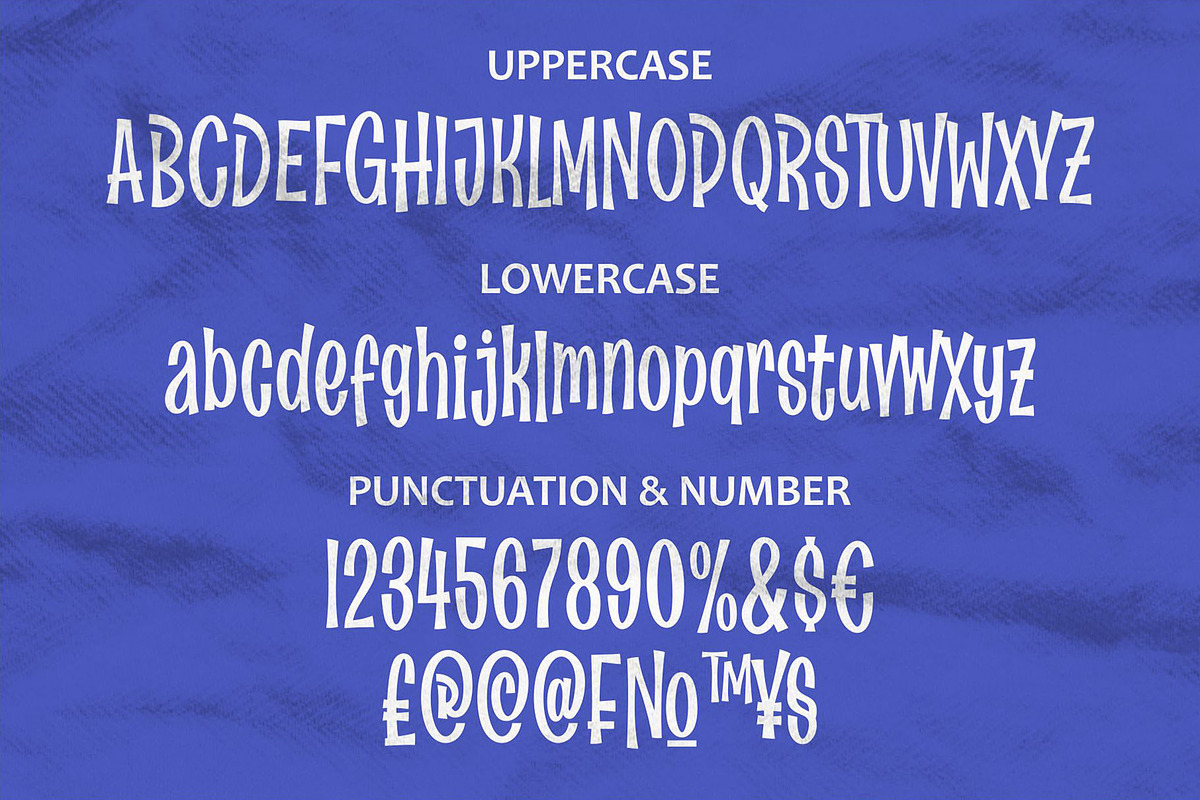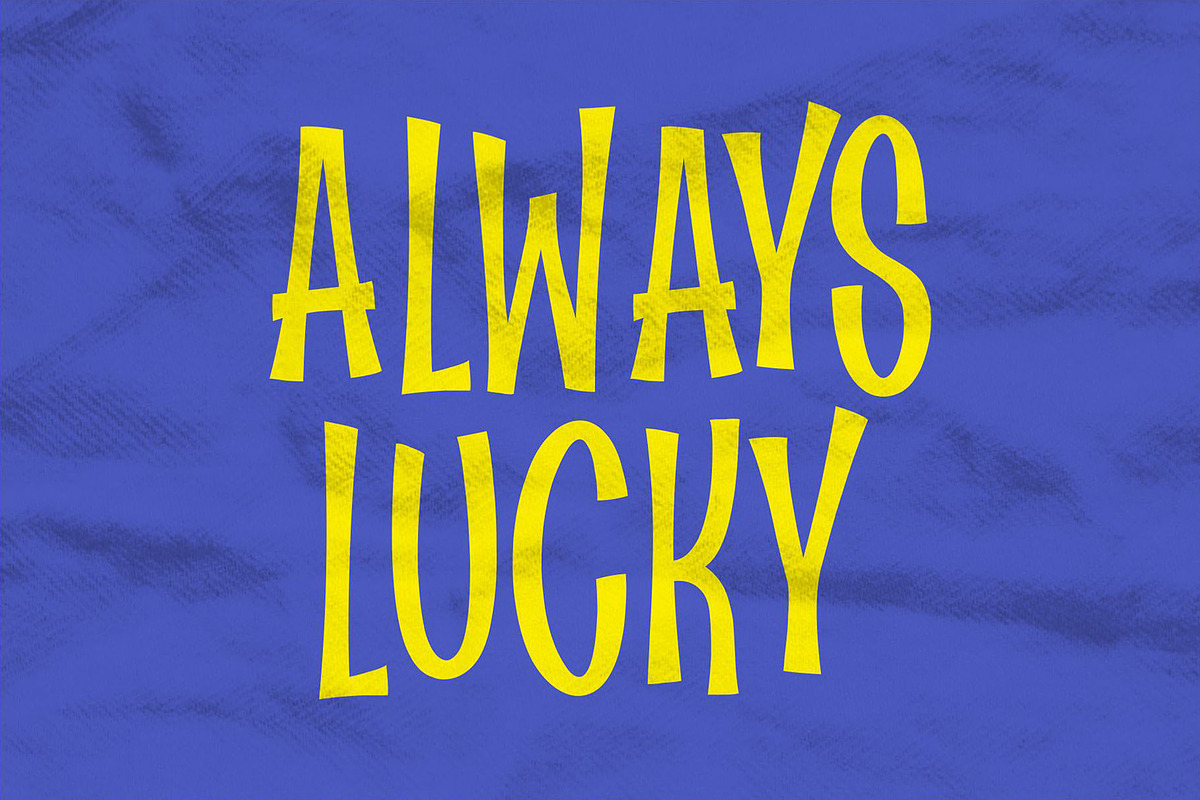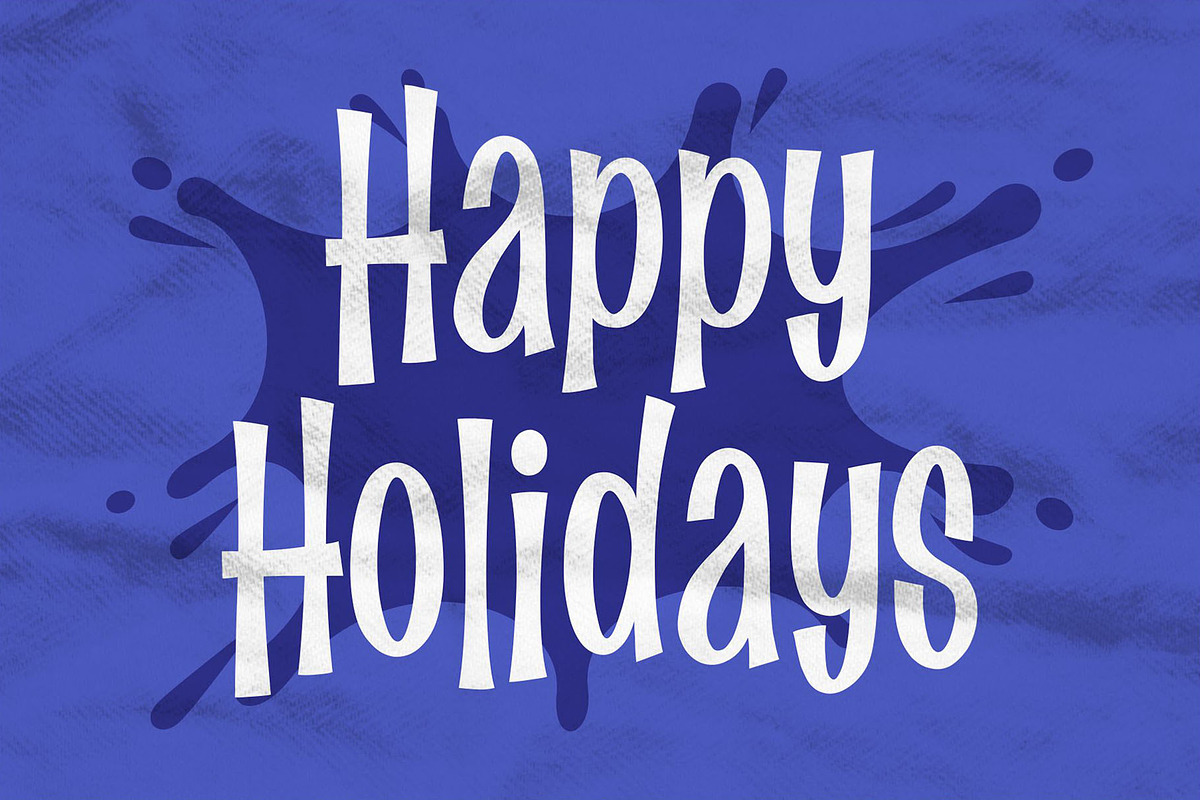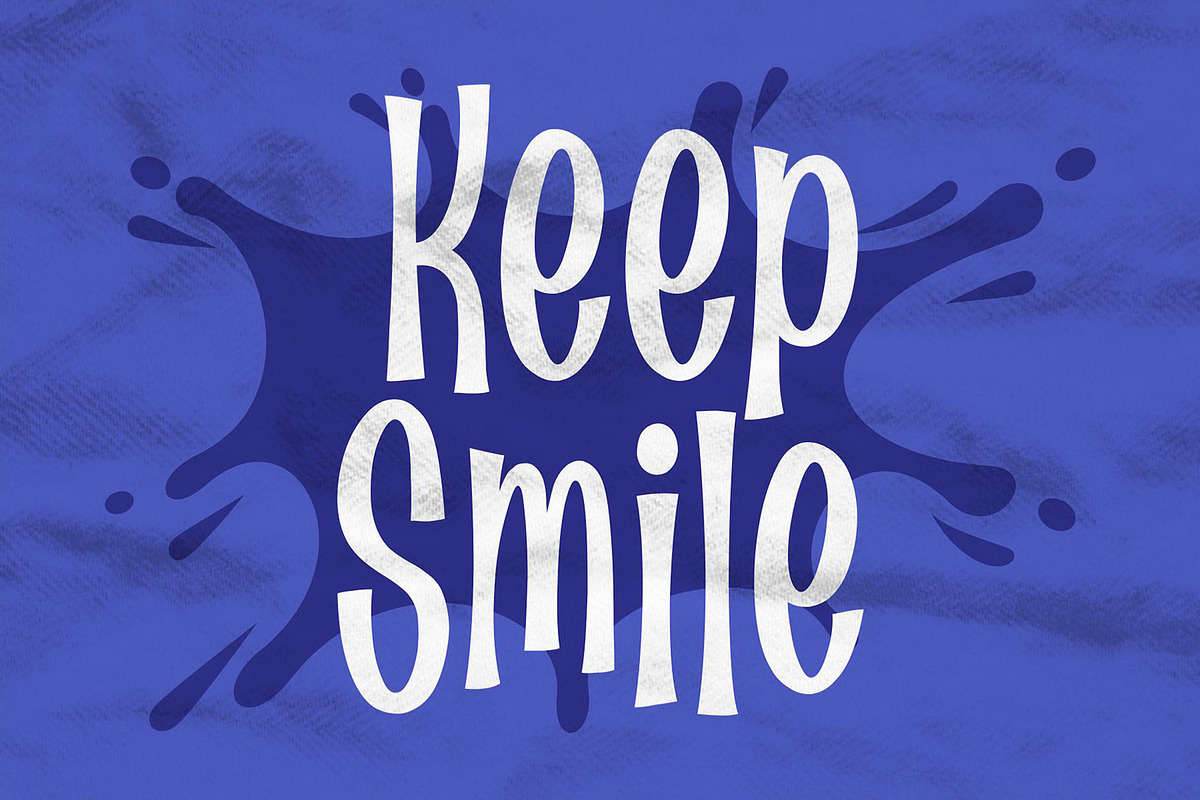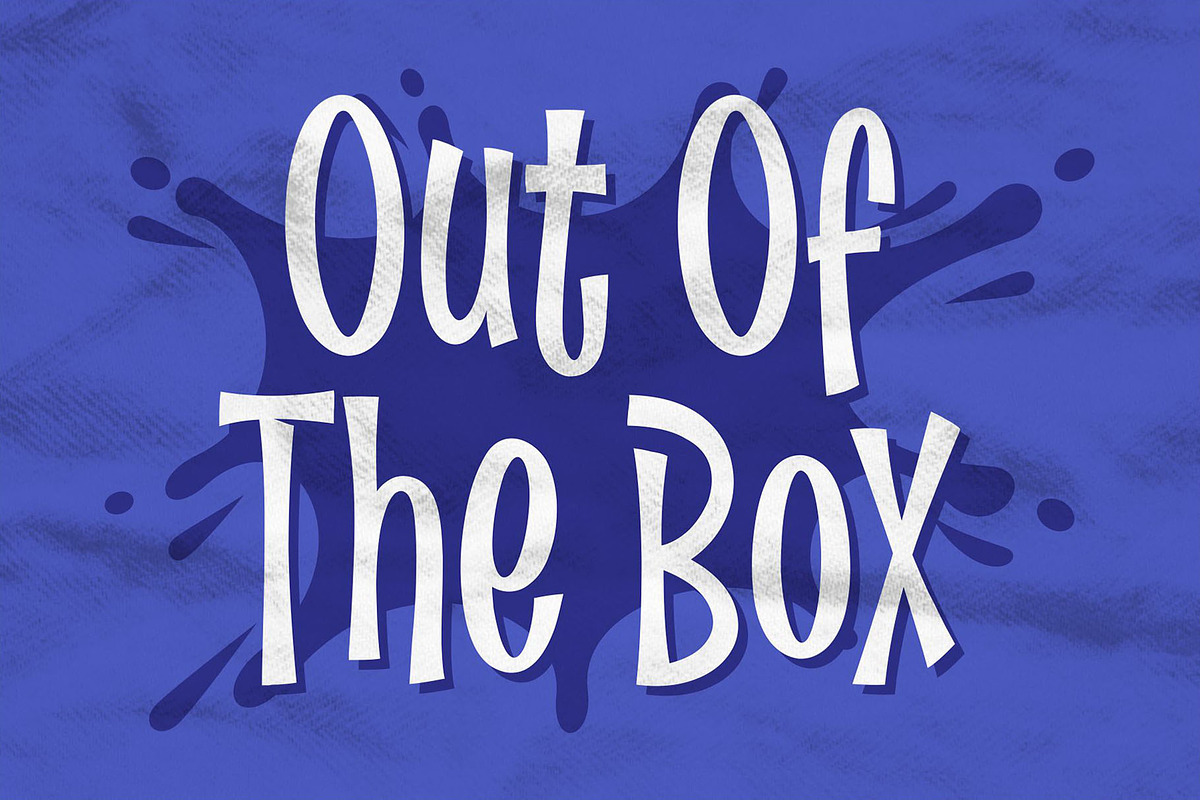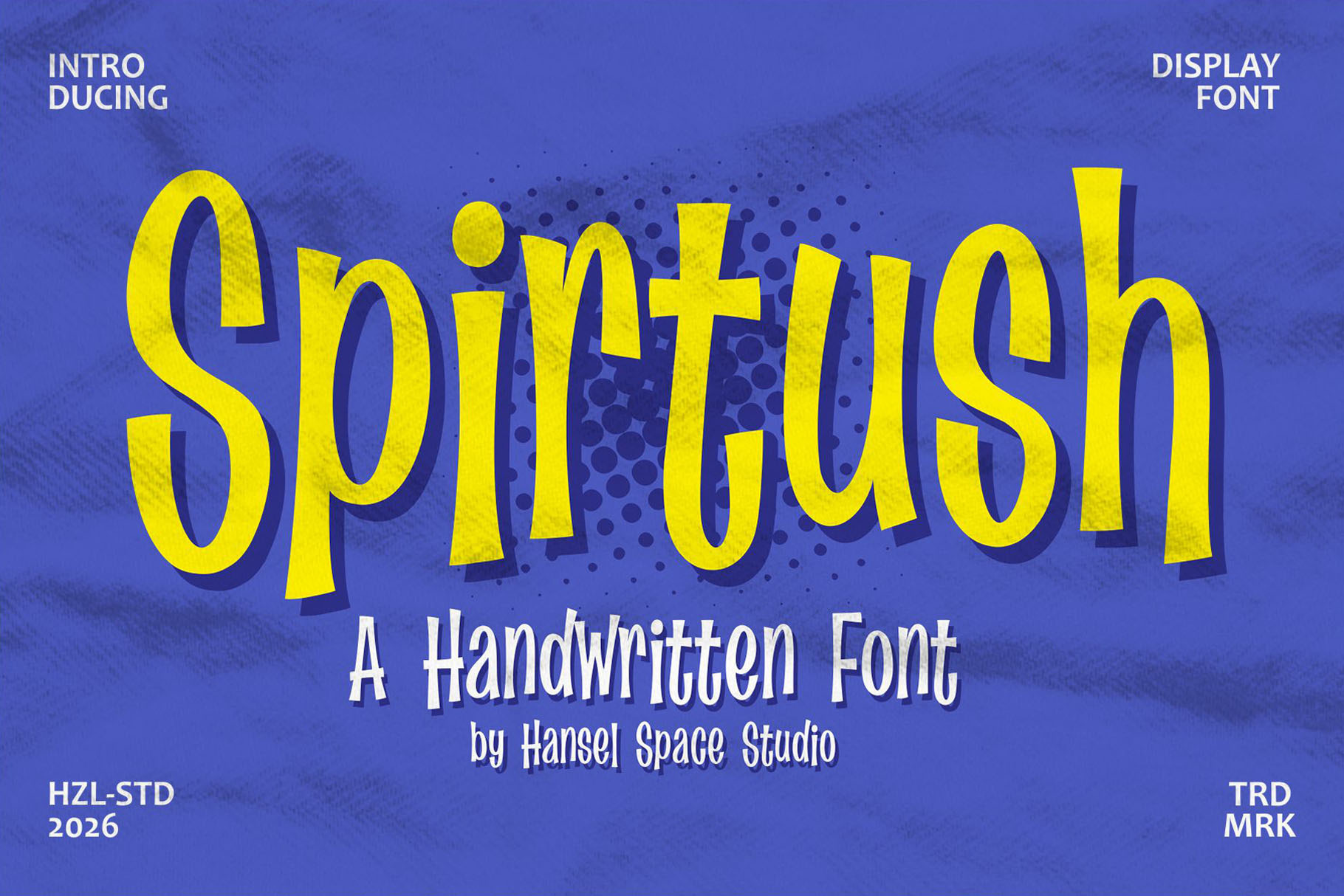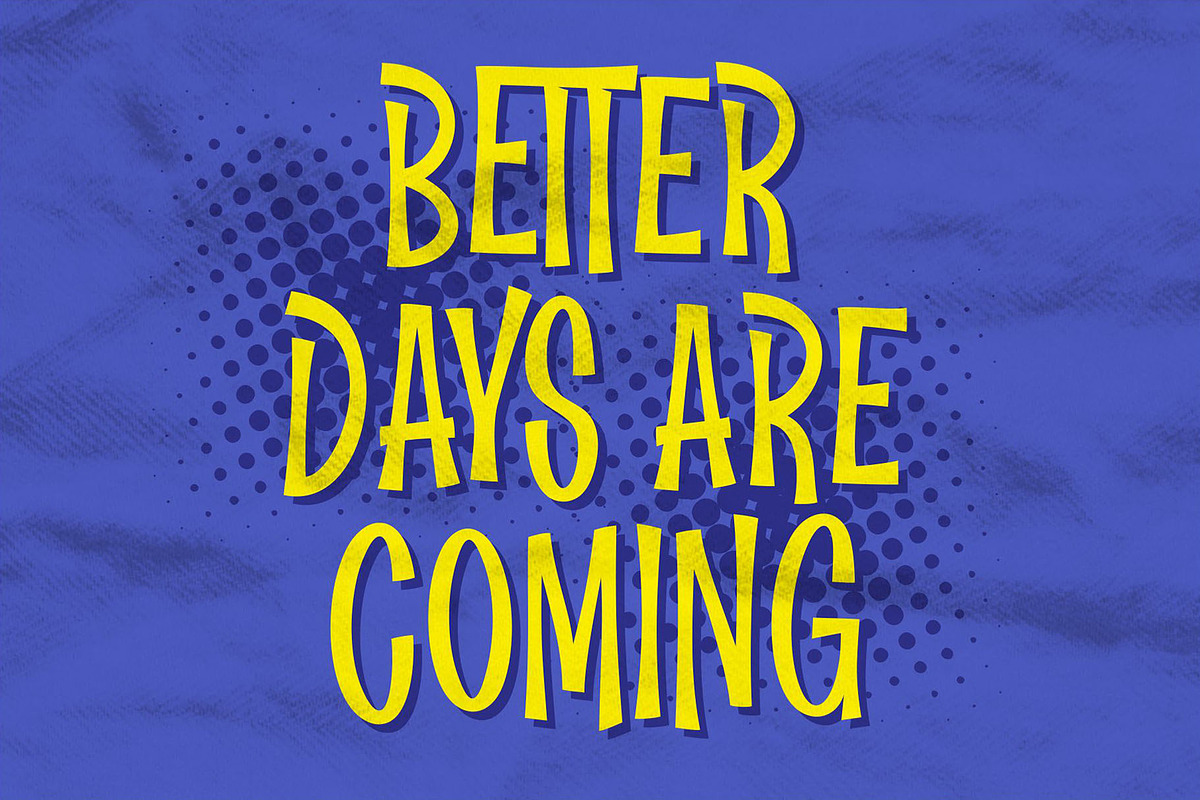
Spirtush - A Handwritten Font
Introducing, Spirtush – A sans serif font with a natural handwriting style that gives the impression of a unique font character. This type of font perfectly made to be applied especially in logo, headline, signage and the other various formal forms such as invitations, labels, logos, magazines, books, greeting / wedding cards, packaging, fashion, make up, stationery, novels, festival, event, labels or any type of advertising purpose.